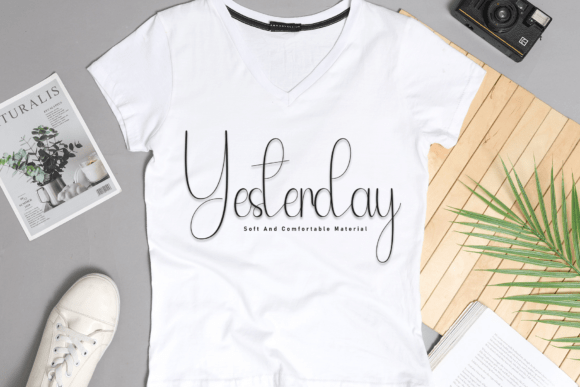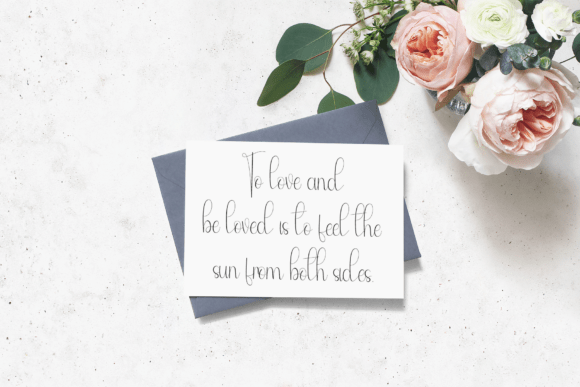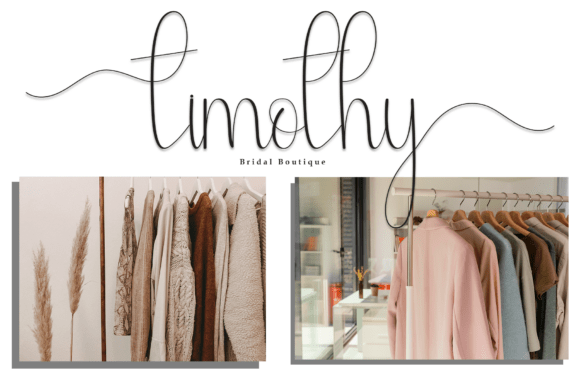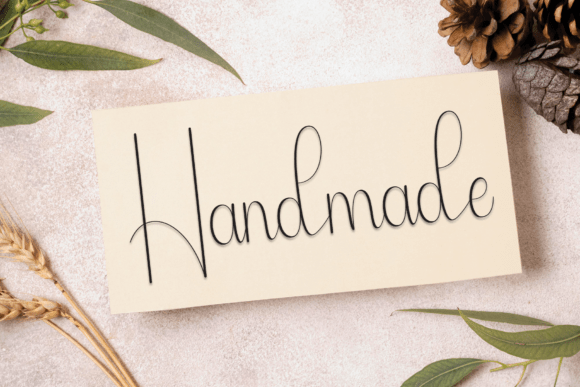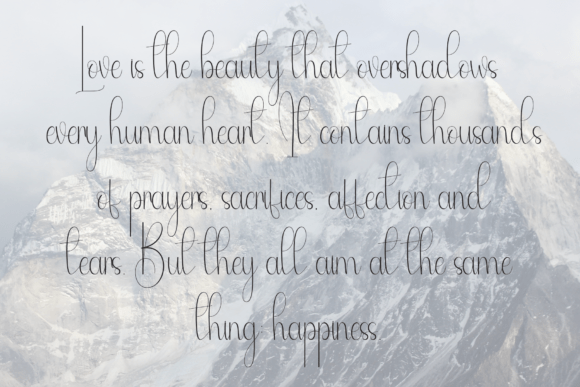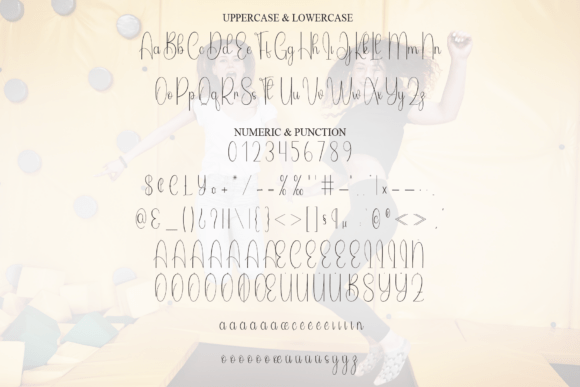
The Perfect Font for a Touch of Elegance
Have you ever been browsing through design inspiration boards, and suddenly, you stumble upon a beautiful, handwritten font that makes your heart skip a beat? For me, that moment happened when I discovered the Bouncing Font – a stylish, elegant script font that exudes fluidity and sophistication.
Bouncing Font is more than just a pretty face; it’s a valuable tool for designers looking to add a personal, artistic touch to their projects. Whether you’re creating branding materials, invitations, or just want to add a touch of whimsy to your social media posts, this font is sure to make your designs stand out. Its smooth, flowing strokes create a natural and sophisticated feel that’s perfect for making a lasting impression.
Bouncing Font Key Features
- Character Set: Multilingual support, including Latin, Cyrillic, and Greek scripts
- Unique Characteristics: Animated and dynamic font effects, customizable bounce patterns, and 3D rendering capabilities
Bouncing Font Review
As a designer, I was excited to try out the Bouncing Font, but I have to say it was a bit of a mixed bag.
- The Bouncing Font is undeniably eye-catching and fun to look at. Its unique, bouncy feel adds a playful touch to any design.
- It’s a great choice for titles and headings where you want to draw attention and create a sense of excitement.
- The font is highly customizable, allowing you to adjust the size, color, and even the bounce speed to suit your design needs.
- The Bouncing Font can be a bit overwhelming when used extensively throughout a design. Its playful feel can quickly become tiresome and even annoying.
- The font’s readability can suffer when used in smaller sizes or for large blocks of text. It’s best suited for short, attention-grabbing phrases or titles.
- The customization options, while extensive, can also be overwhelming for those who prefer a more straightforward design process.
Overall, I think the Bouncing Font is a great addition to any designer’s toolkit, but it’s essential to use it judiciously. When used in moderation and with careful consideration, it can add a delightful touch to your designs. However, overuse or misuse can quickly lead to design fatigue.
Tips for Getting the Most Out of Bouncing Font
Here are some tips for getting the most out of Bouncing Font:
- Use the animation panel to create a custom animation that matches your brand.
- Combine Bouncing Font with other design elements to create a visually appealing effect.
Bouncing Font is commonly used in:
- Animated videos and presentations.
- Interactive web elements and UI components.
Alternatives to Bouncing Font
Great Vibes is a beautiful, elegant script font that can add a touch of sophistication to your designs. It’s perfect for use in titles, headings, and other elements where you want to convey a sense of luxury and refinement. When to use: High-end branding, luxury products, elegant invitations.
Comparison to Bouncing Font: While Bouncing Font is playful and fun, Great Vibes is more elegant and refined. Great Vibes is better suited for formal or professional designs, whereas Bouncing Font is more suitable for casual or creative projects.
Crimson Text is a high-quality serif font that’s perfect for body text and other elements where you want to convey a sense of professionalism and authority. It’s a great choice for use in long blocks of text, such as articles, blog posts, or technical documentation. When to use: Corporate branding, technical writing, academic papers.
Comparison to Bouncing Font: While Bouncing Font is playful and attention-grabbing, Crimson Text is more subdued and professional. Crimson Text is better suited for formal or technical writing, whereas Bouncing Font is more suitable for creative or marketing projects.